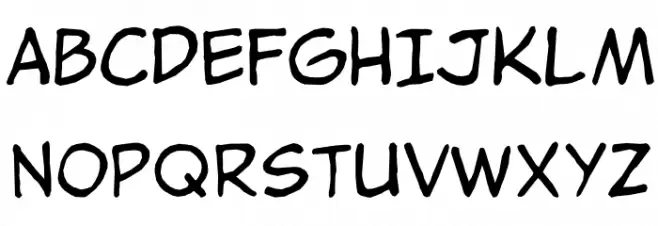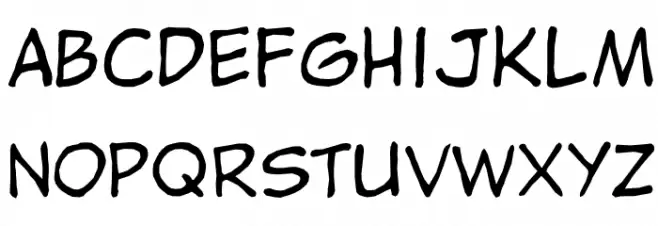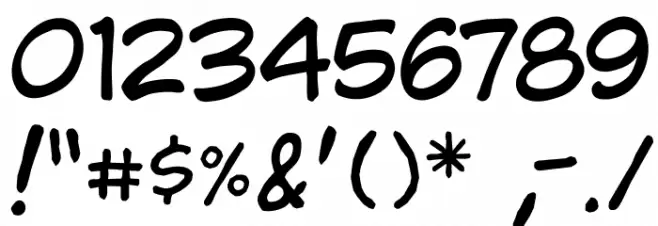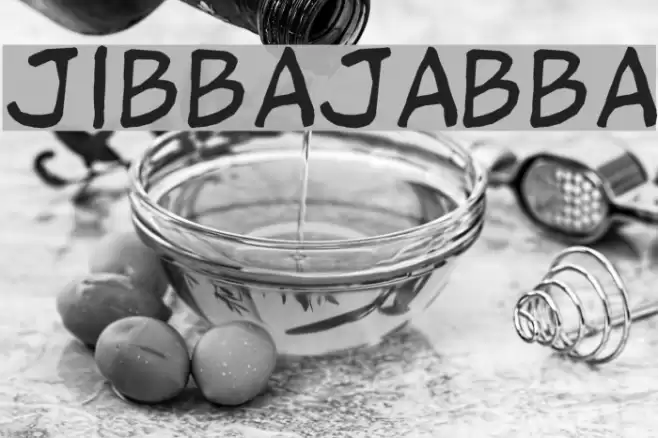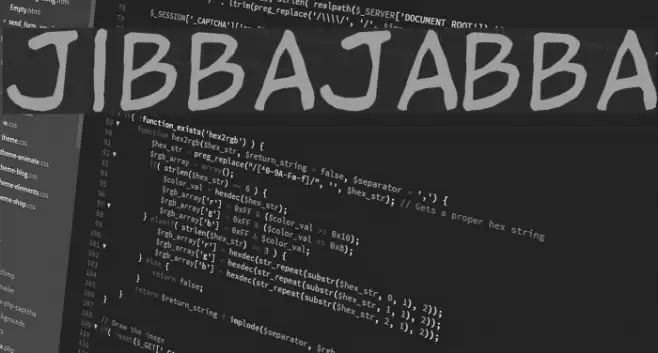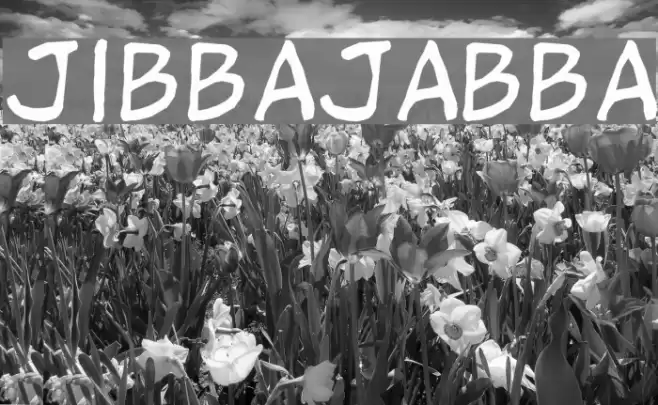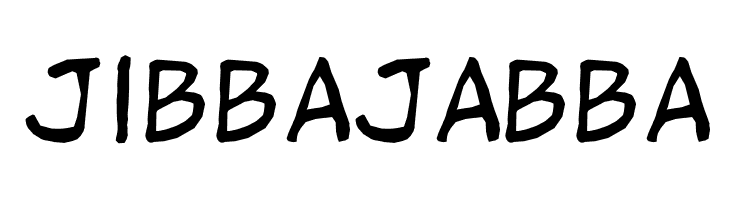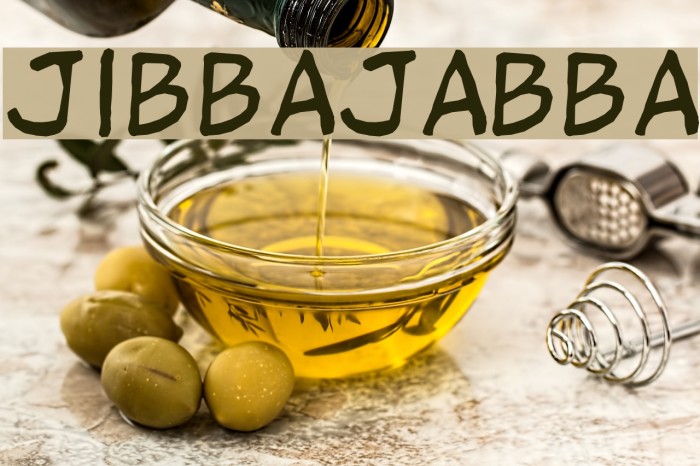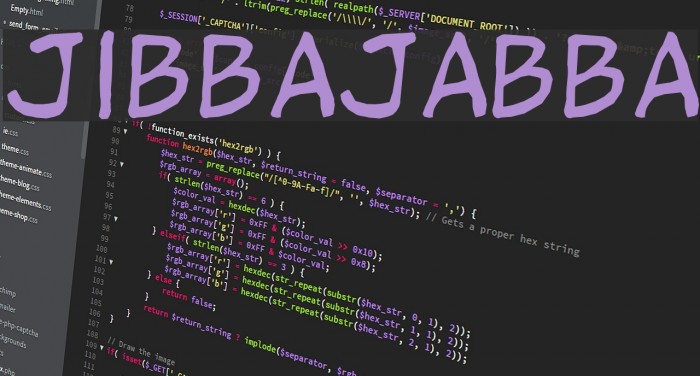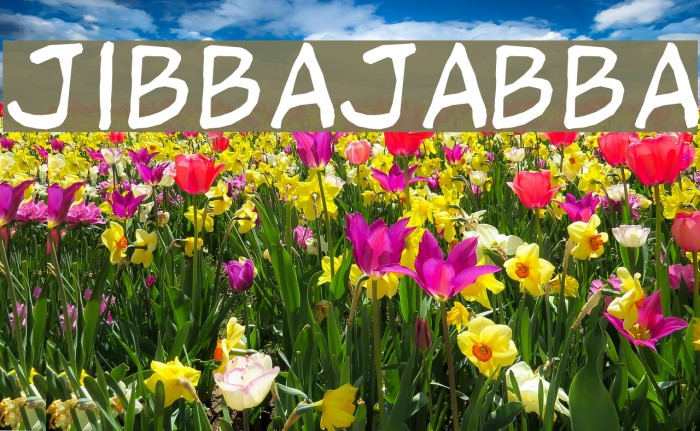
jibbajabba
This playful and energetic font features a handwritten style with a casual, informal appearance. The letters are bold and slightly irregular, giving them a dynamic and lively feel. The strokes are thick and rounded, contributing to a friendly and approachable look. The characters have a slight slant, adding to the informal and whimsical nature of the font. The numbers and special characters maintain the same playful style, ensuring consistency across all elements. This font is perfect for projects that require a fun and engaging aesthetic.
A playful, handwritten font with bold, rounded strokes and a lively, informal style.
- Proposed Projects: Ideal for children's books, comic strips, playful branding, and casual invitations.
- Overall Style: Playful
- Use Case: Headlines, Logos, Informal Text